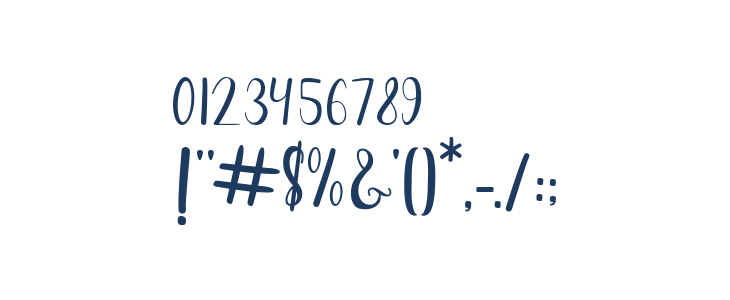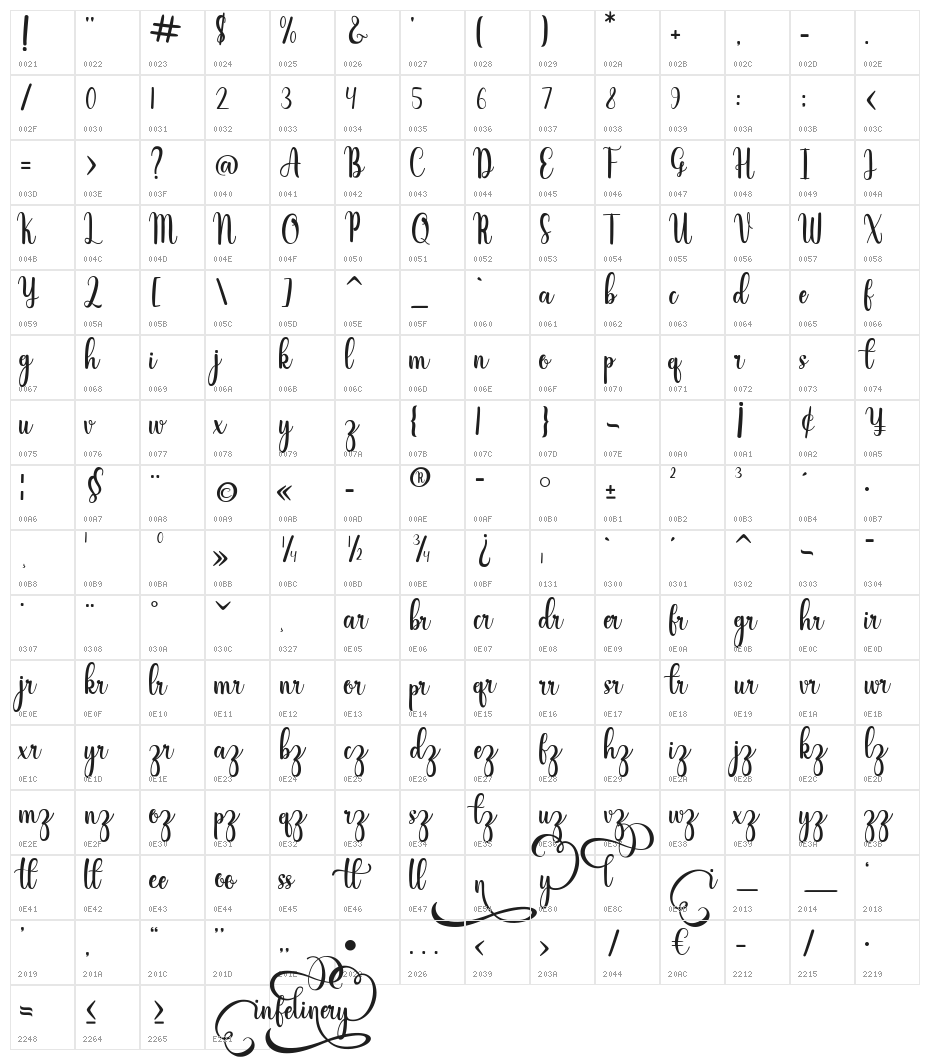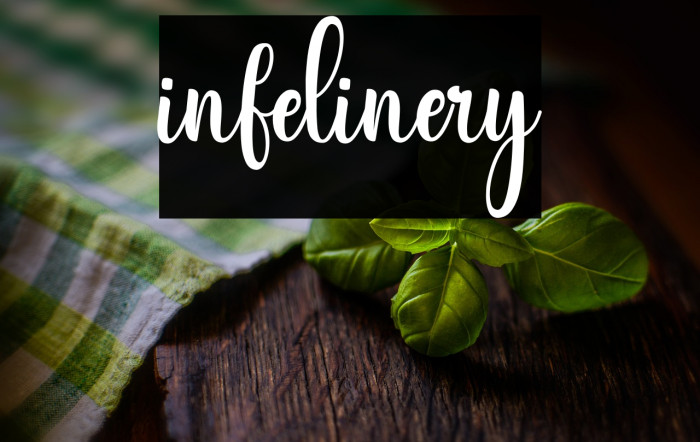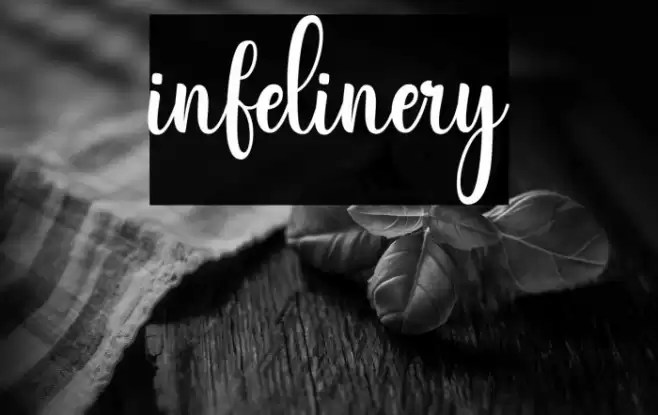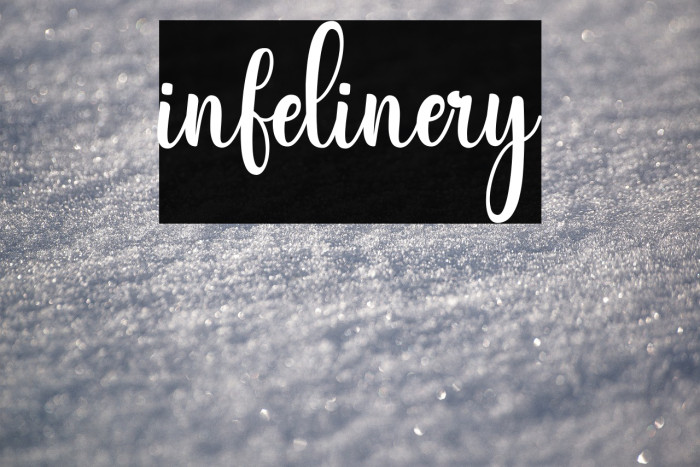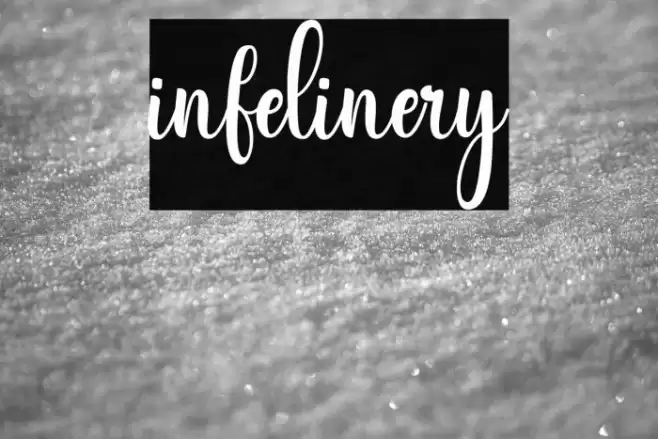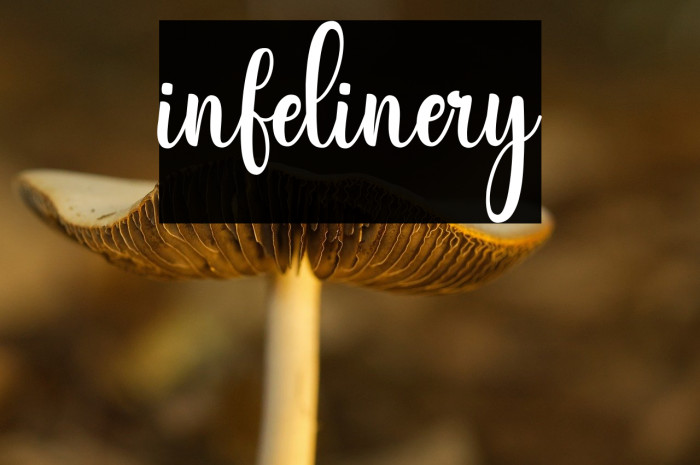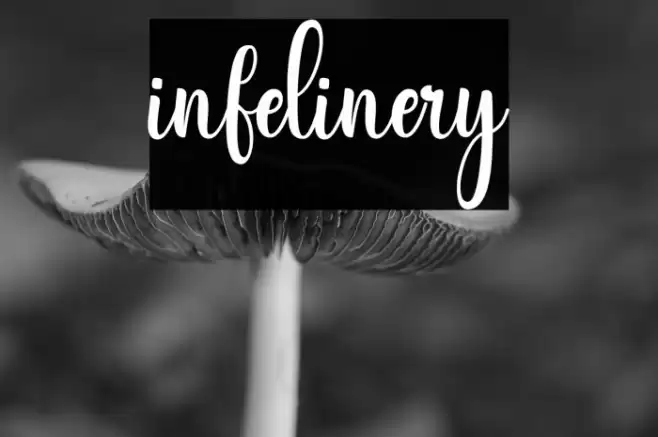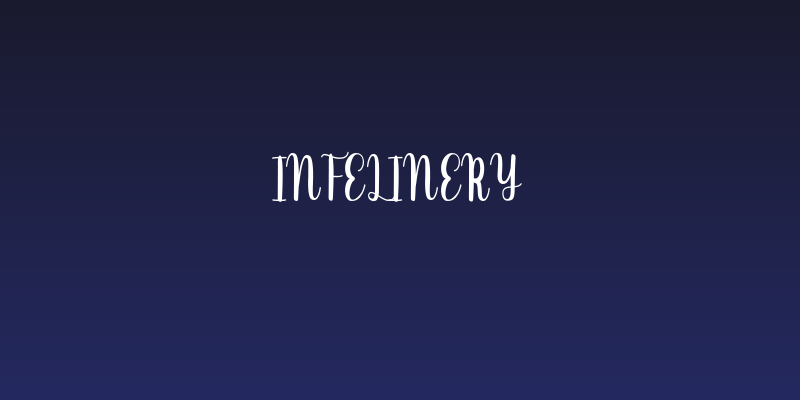
infelinery Font
infelinery Description
This font features a playful and elegant script style with a handwritten appearance. The uppercase letters are tall and slightly narrow, with smooth curves and a consistent flow, giving them a graceful and fluid look. The lowercase letters maintain a similar style, with some letters featuring loops and swashes that enhance the font's decorative nature. The numbers are consistent with the overall style, maintaining the same fluidity and elegance. Special characters are designed to match the script style, ensuring a cohesive look across all elements. This font is ideal for projects that require a personal and artistic touch, such as invitations, greeting cards, and branding materials.
Use CaseLogos, Headlines, Invitations
Proposed ProjectsIdeal for invitations, greeting cards, branding, and artistic projects.